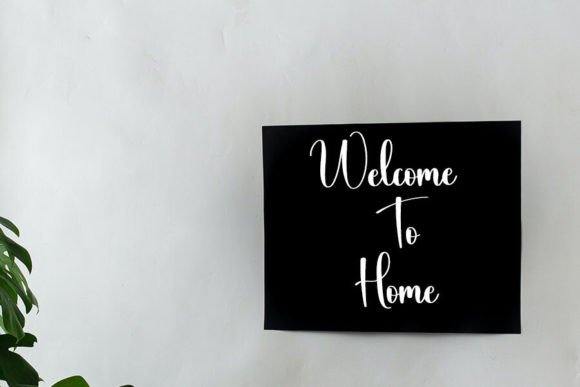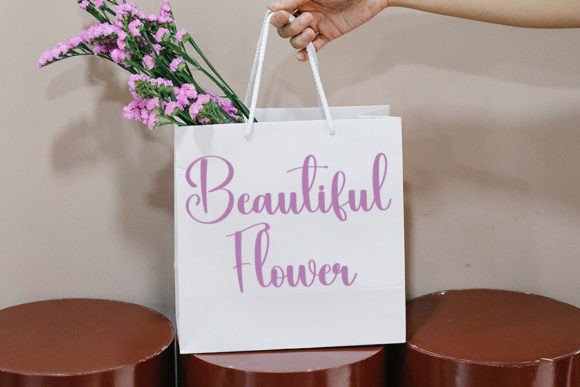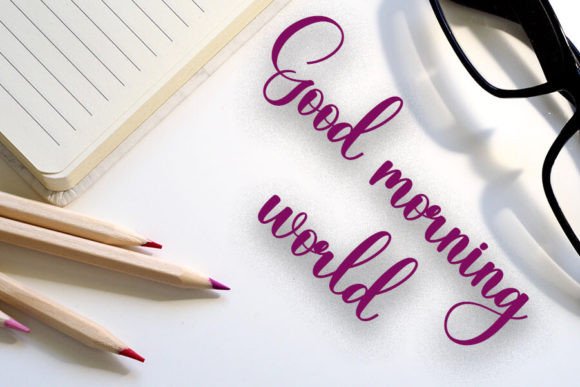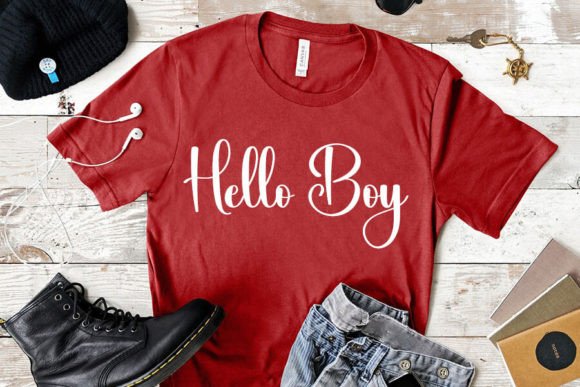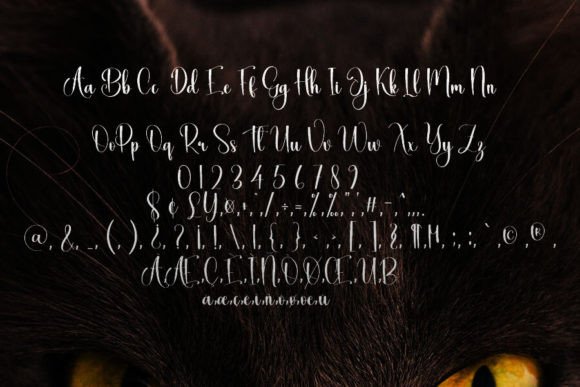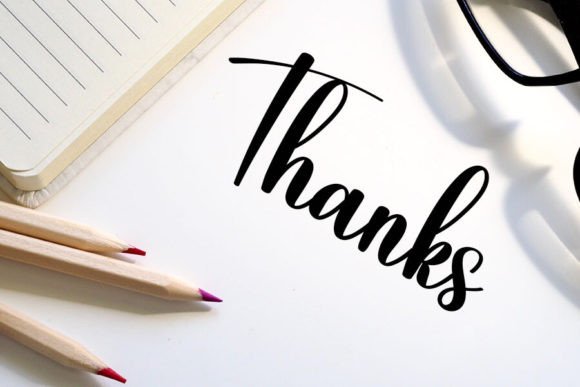
Introducing Animal Font: The Elegant and Timeless Choice for Your Design Projects
Are you on the hunt for a font that exudes elegance and sophistication? Look no further than Animal Font, a beautiful handwritten font that is sure to capture your heart. With its distinct and timeless style, Animal Font is perfect for designers and crafters looking to add a touch of refinement to their projects.
What is Animal Font?
Animal Font is a carefully crafted handwritten font that boasts an elegant touch, making it ideal for a wide range of design applications. Its unique and distinctive style sets it apart from other fonts, ensuring that your designs stand out from the crowd. Whether you’re working on a logo, branding project, or simply want to add a personal touch to your digital or print materials, Animal Font is the perfect choice.
Key Features of Animal Font
- Elegant and Refined: Animal Font features a sophisticated and elegant design that is sure to elevate your projects.
- Handwritten Style: With its handwritten style, Animal Font adds a personal and unique touch to your designs.
- Distinct and Timeless: The font’s distinct style ensures that your designs will stand the test of time, remaining stylish and relevant for years to come.
- Versatile: Animal Font is perfect for a wide range of design applications, including logos, branding, digital and print materials.
Why Choose Animal Font?
With so many fonts to choose from, why should you opt for Animal Font? Here are just a few reasons why designers and crafters love this beautiful font:
- Unique Style: Animal Font’s unique style ensures that your designs will stand out from the crowd.
- Ease of Use: The font is easy to use and can be applied to a wide range of design projects.
- High-Quality: Animal Font is a high-quality font that is designed to deliver exceptional results.
- Timeless Appeal: The font’s timeless style ensures that your designs will remain stylish and relevant for years to come.
How to Use Animal Font in Your Design Projects
- Pair with Other Fonts: Animal Font pairs well with other fonts, making it easy to create stunning combinations.
- Experiment with Colors: The font looks great in a variety of colors, so don’t be afraid to experiment and find the perfect hue for your project.
- Use for Headings and Titles: Animal Font is perfect for headings and titles, adding a touch of elegance and sophistication to your designs.
- Add a Personal Touch: Use Animal Font to add a personal touch to your digital or print materials, making them stand out from the crowd.